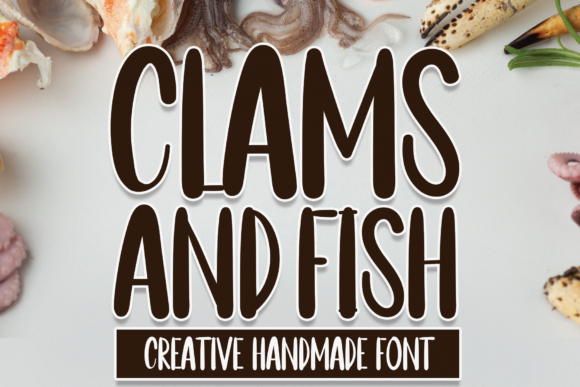
**Introducing Clams and Fish: The Enchanting Handwritten Font That Will Captivate Your Designs**
Prepare to dive into a world of elegance and charm with Clams and Fish, the captivating handwritten font that will transform your designs into breathtaking masterpieces. Each stroke of this enchanting font exudes a natural and free-spirited aura, inviting you to unleash your imagination and create designs that resonate with your audience.
**A Font Crafted for Headlines that Shine**
Clams and Fish isn't just a font; it's a beacon of inspiration for your headlines. Its bold and alluring presence commands attention, making your words leap off the page and dance before the eyes of your readers. With Clams and Fish as your ally, your headlines will become unforgettable, leaving a lasting impression on all who encounter them.
**A Font That Adapts to Your Every Need**
Much like the graceful fish that glide through the ocean's depths, Clams and Fish is a font of remarkable adaptability. Its versatile nature allows it to seamlessly harmonize with diverse design styles, from the whimsy of playful projects to the sophistication of elegant creations. Whether you're crafting invitations for a special occasion or designing marketing materials that demand attention, Clams and Fish will elevate your work to new heights.
**A Font for Dreams That Take Flight**
Clams and Fish is more than just a collection of letters; it's a gateway to a realm where your creative aspirations can soar. Its simple yet striking style empowers you to transcend the boundaries of ordinary design, crafting masterpieces that evoke emotions and ignite imaginations. Embrace the magic of Clams and Fish, and watch your designs transform into works of art that resonate with the world.
**Unleash Your Creativity with Clams and Fish**
Clams and Fish is not merely a font; it's an invitation to explore the depths of your creativity. Let its enchanting strokes guide you on a journey of self-expression, as you craft designs that capture the essence of your unique vision. Immerse yourself in the world of Clams and Fish, and discover the limitless possibilities that await you.